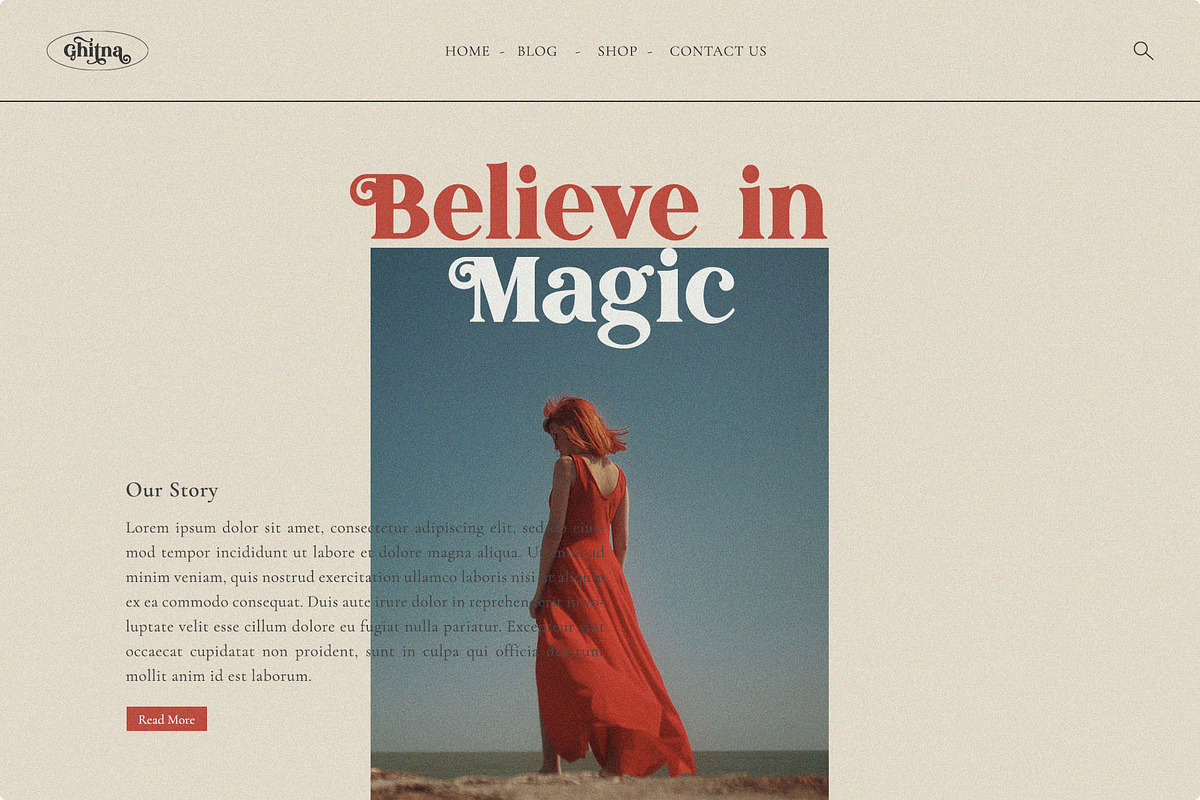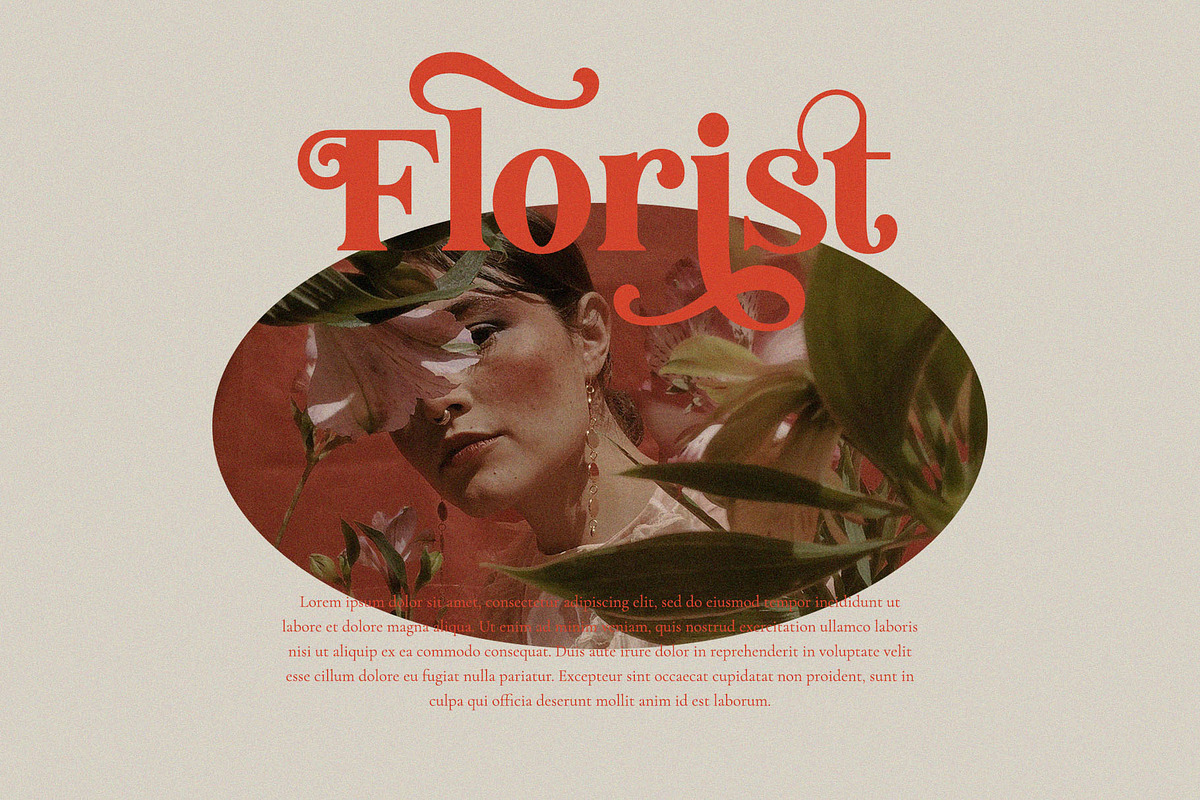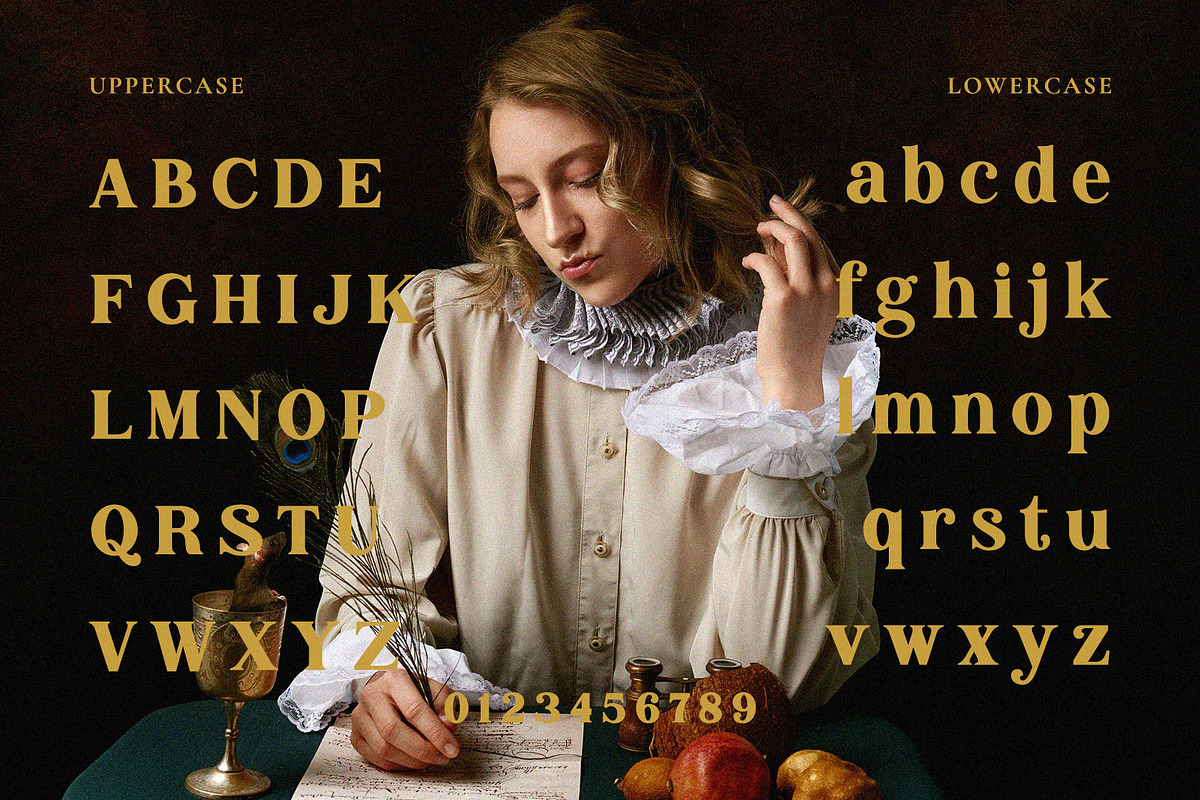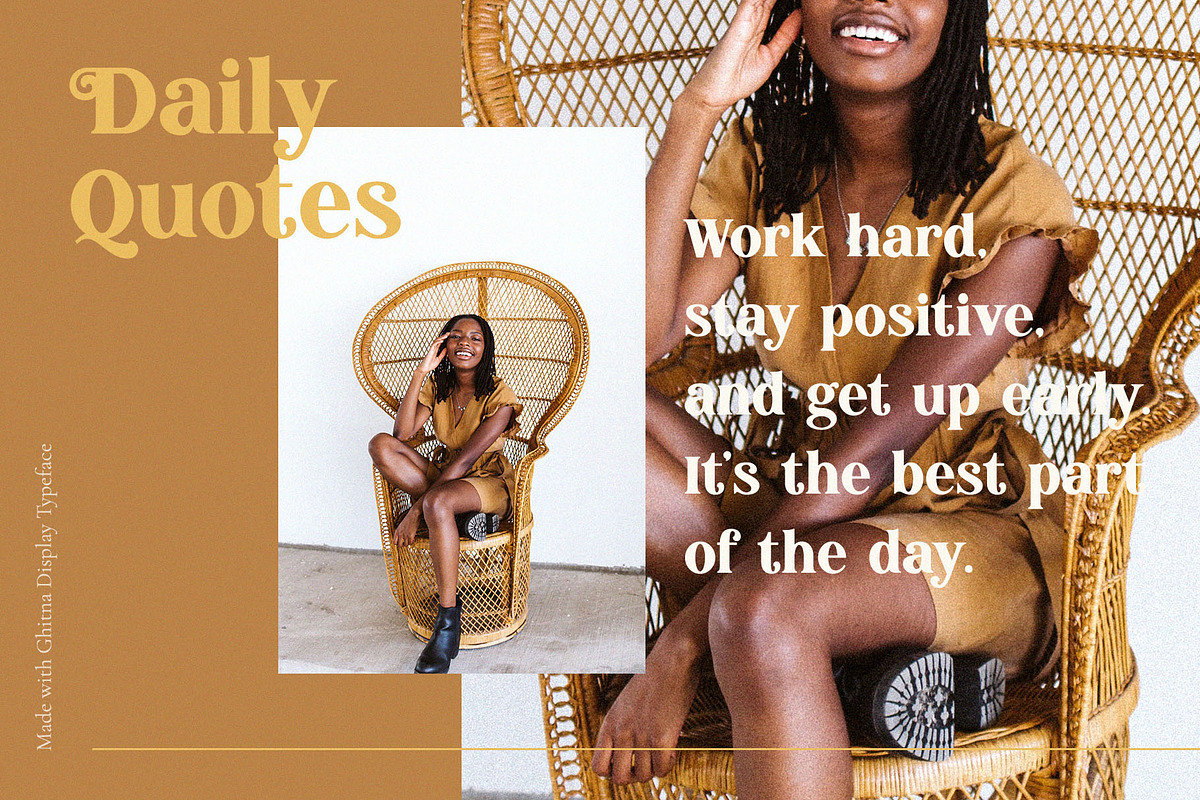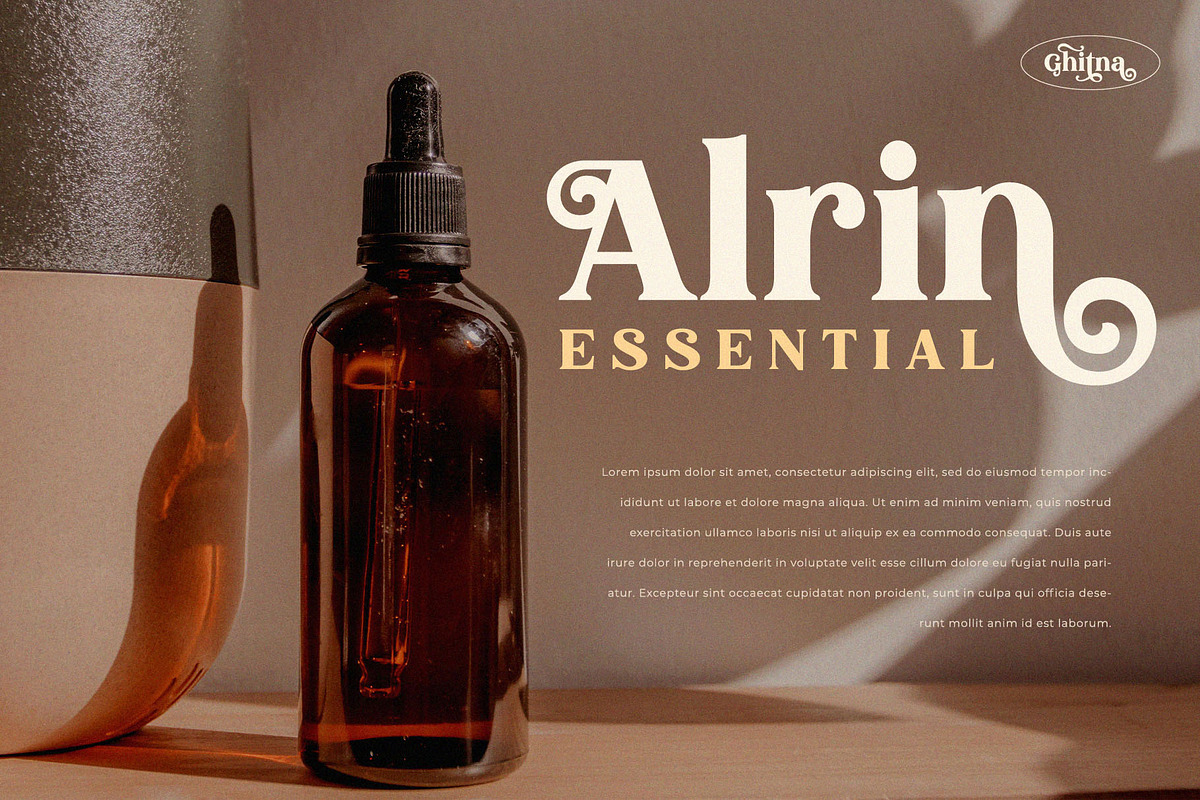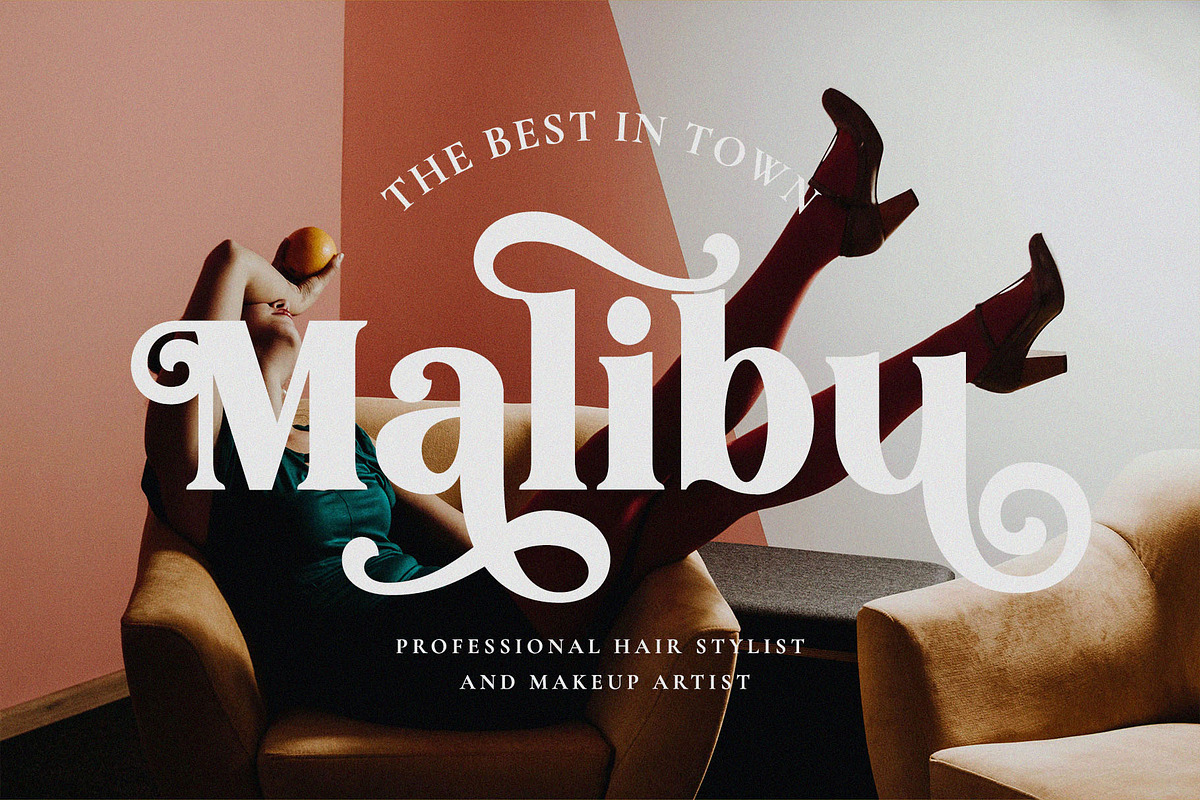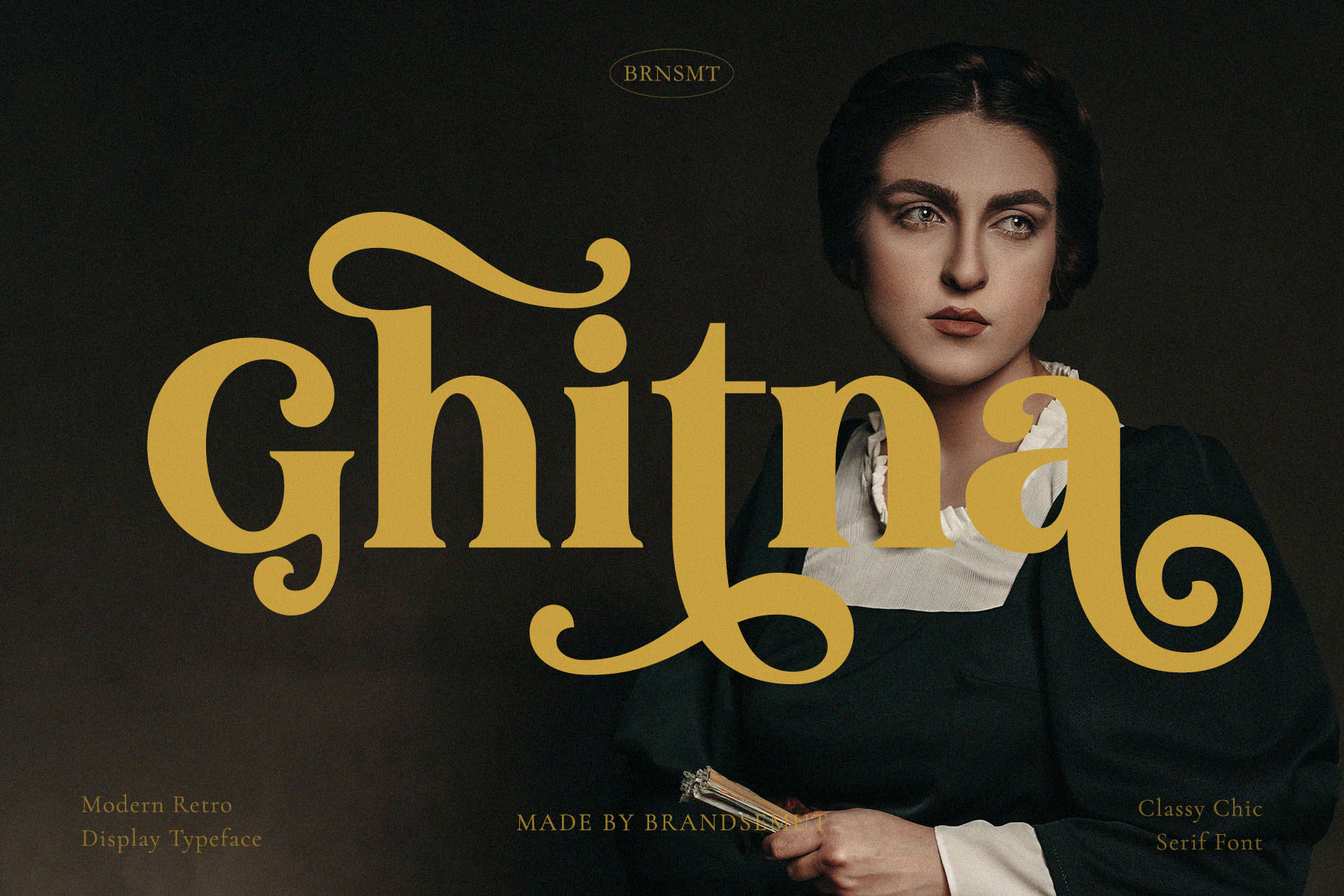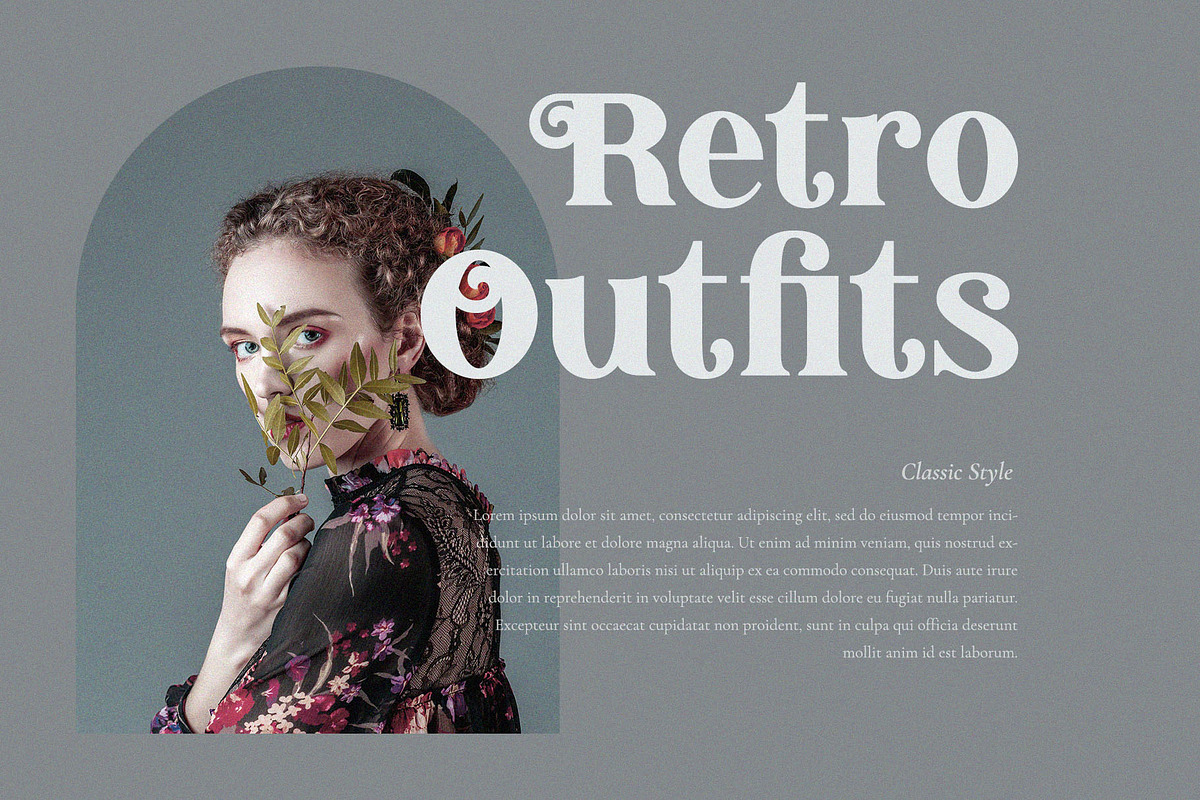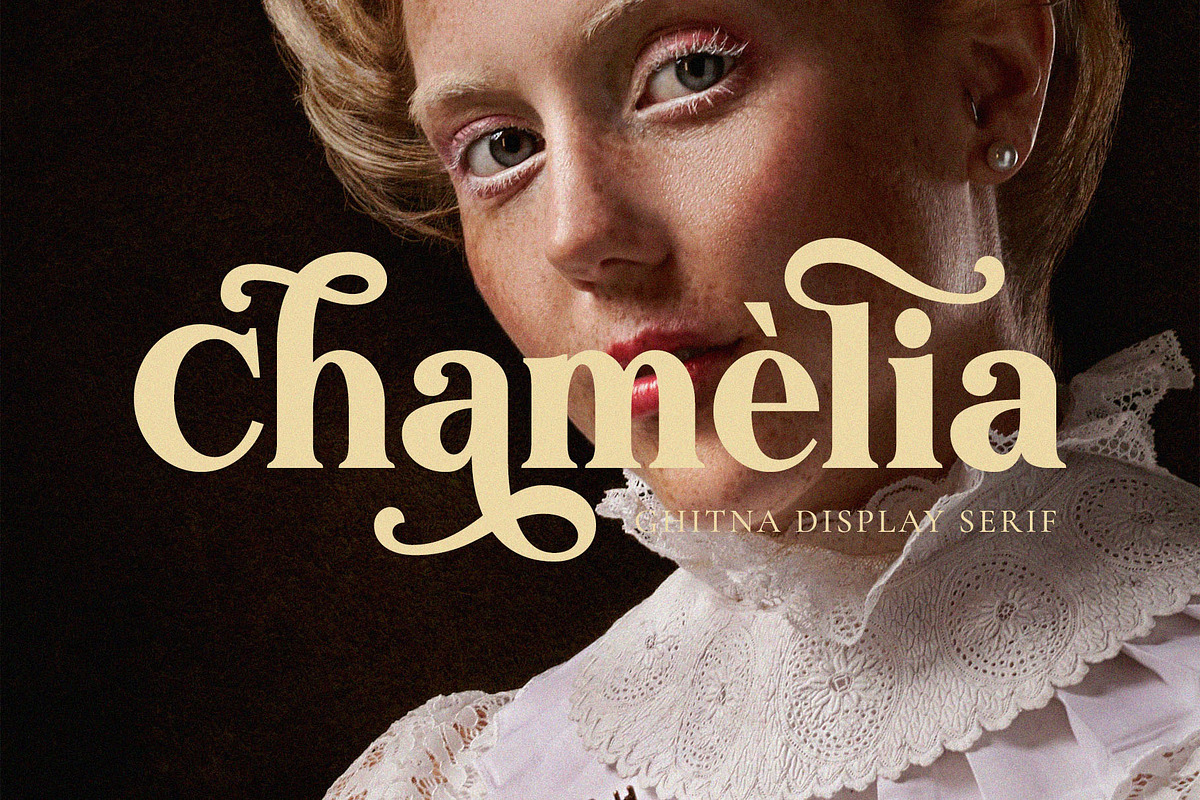
Ghitna - Retro Serif Font
Introducing Ghitna Retro Serif!!! Ghitna is a classic and retro serif font. This font is works great for logos, magazine, social media. Already matched up and ready to be used together for your next design! For those of you who are needing a touch of retro, classic, stylish, classy, chic and modernity for your designs, this font was created for you!
Ghitna was built with OpenType features and includes ligatures, alternates, numbers, punctuation, and it also supports other languages.